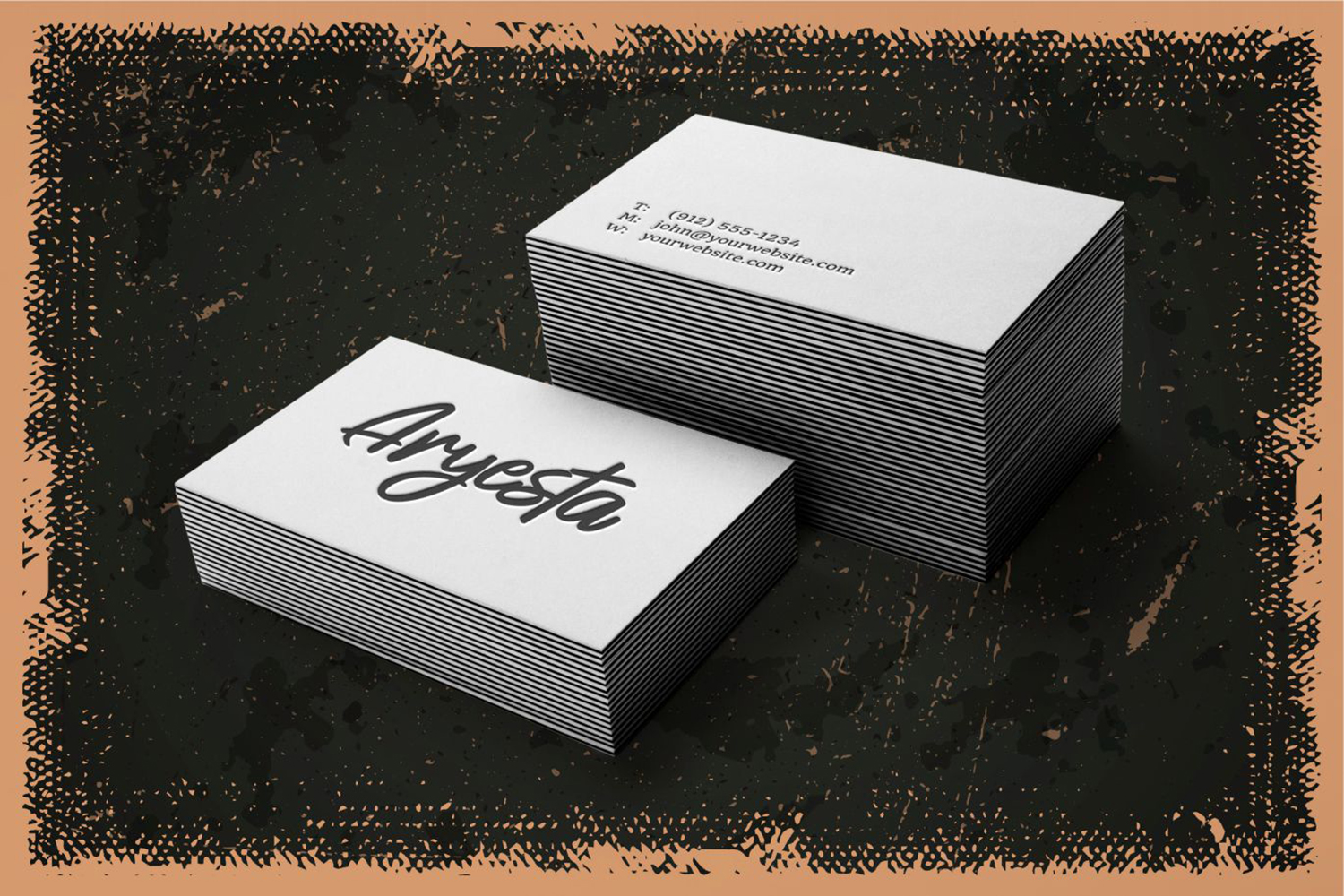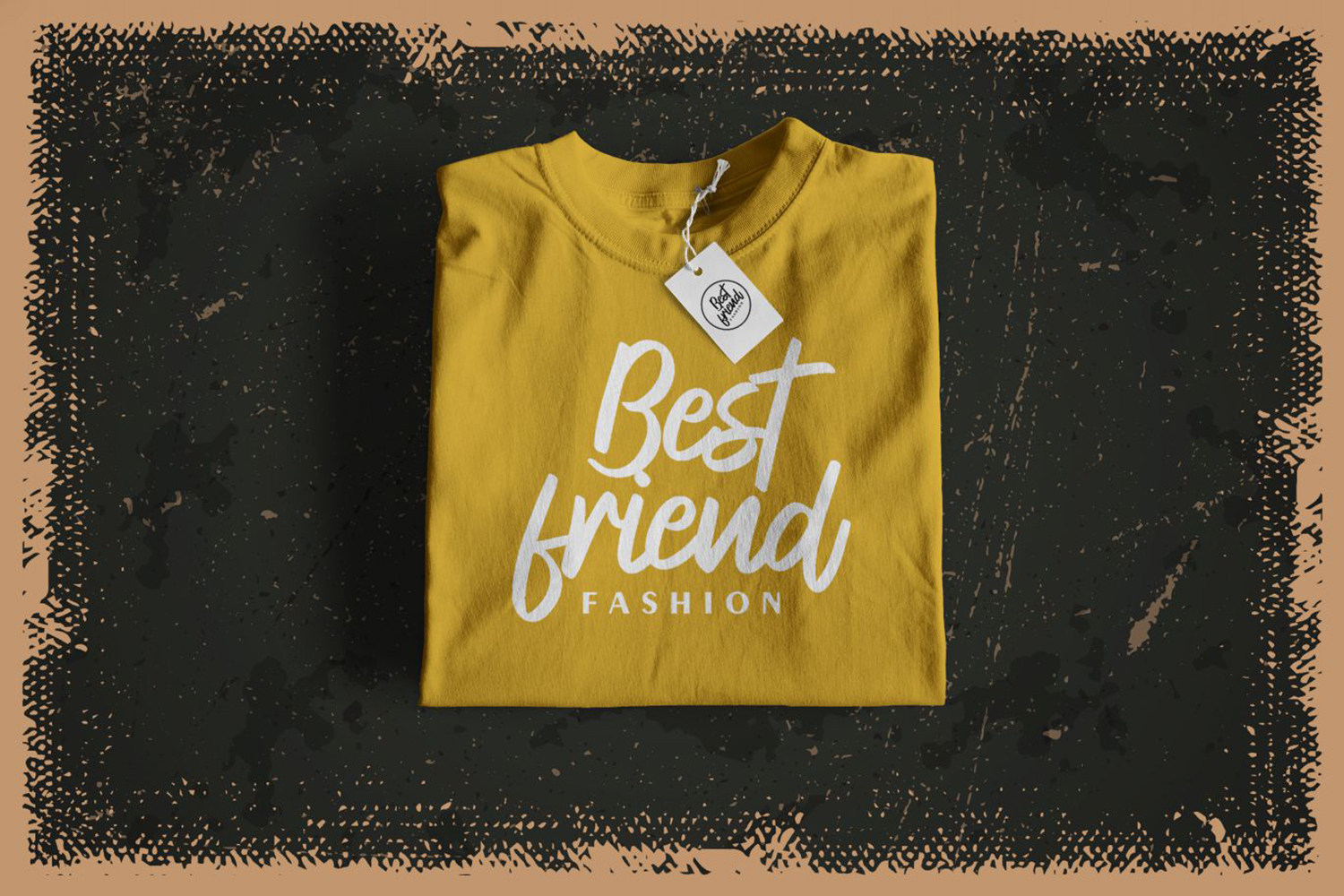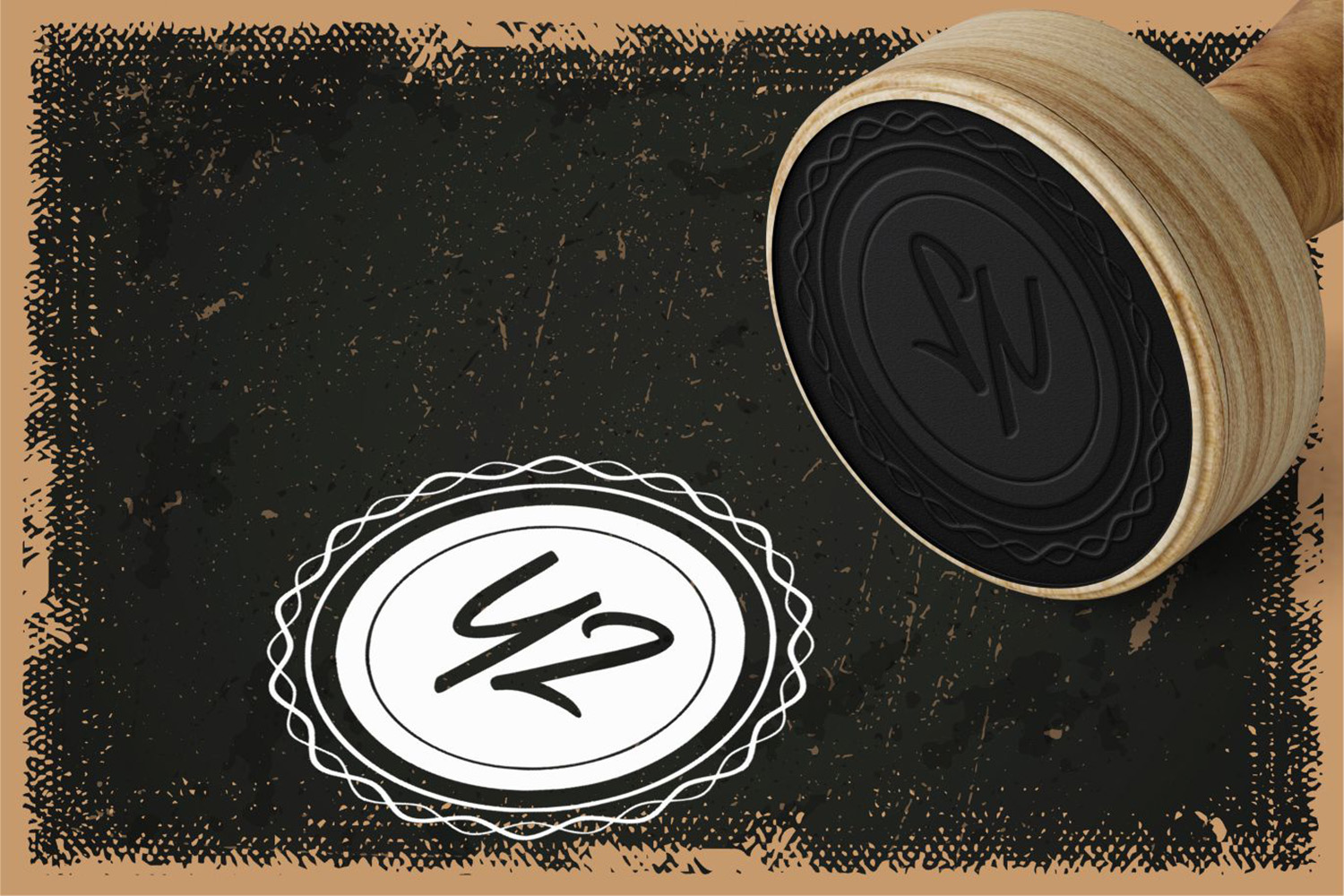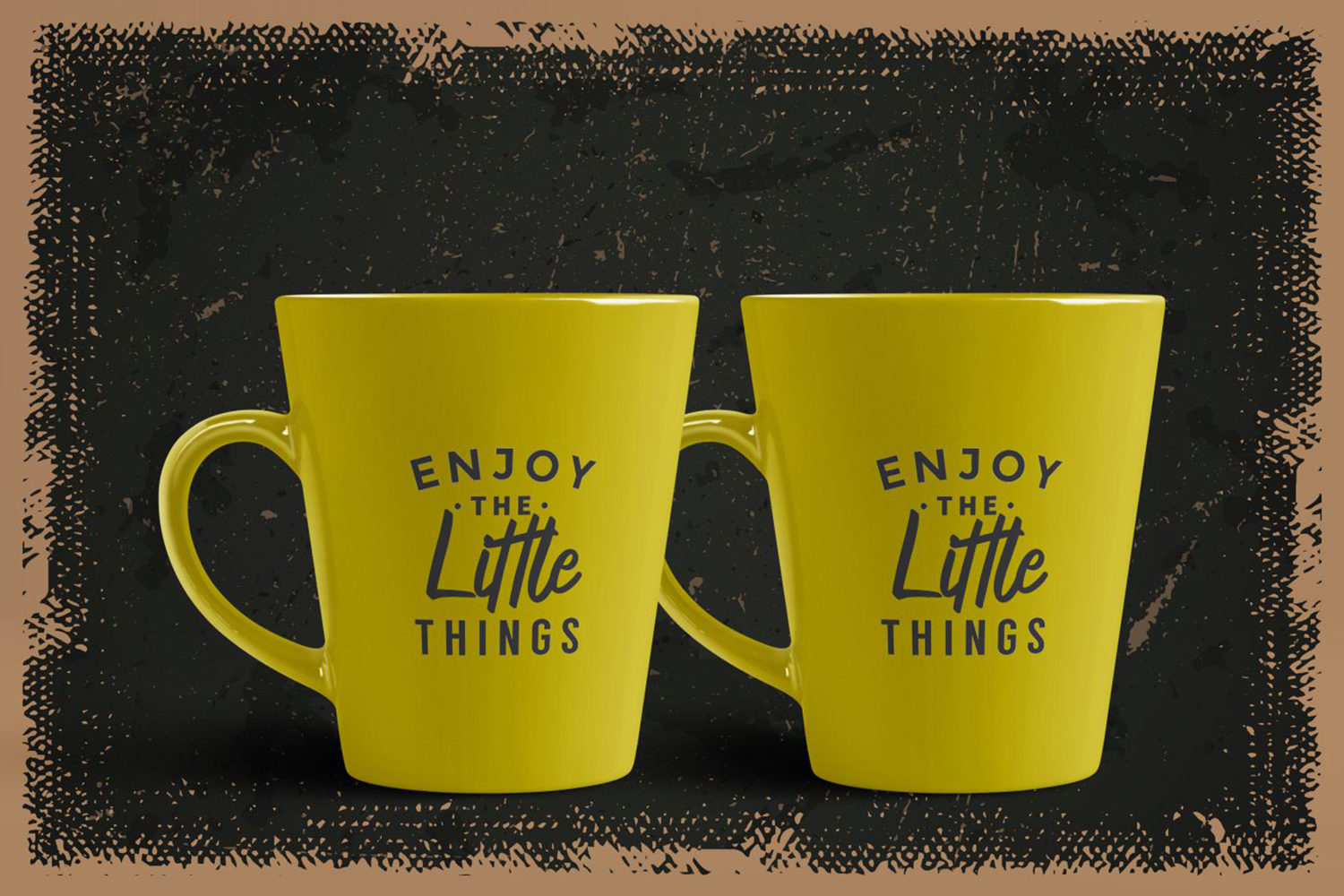
Ragilac Free Font
Introducing Ragilac Free Font, an exquisite script font that exudes a contemporary charm and flawless craftsmanship, drawing inspiration from the timeless allure of classic calligraphy. Striking the perfect balance between thickness and delicacy, with a harmonious variety of strokes, this font is meticulously crafted to elevate the aesthetics of your creative projects. This free typeface was designed by a talented Fannan studio. If you like it don’t forget to check out the full version.